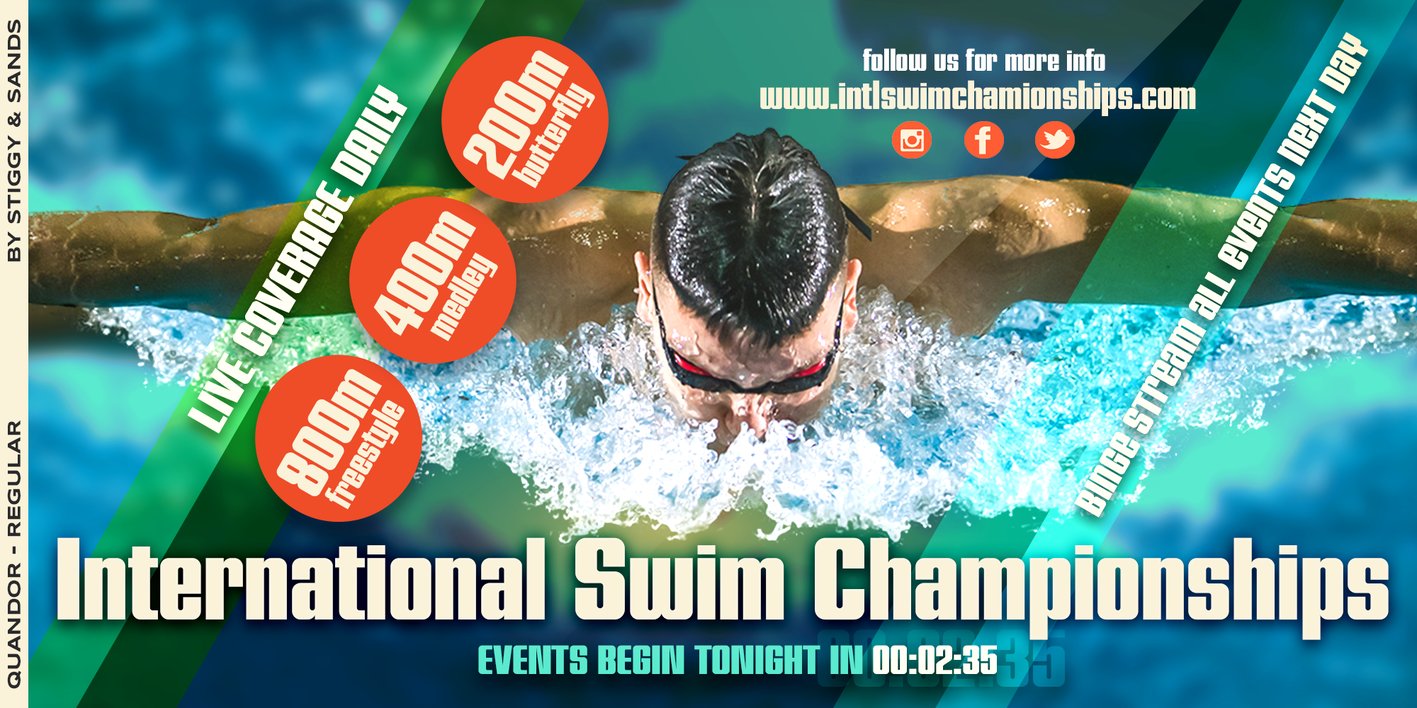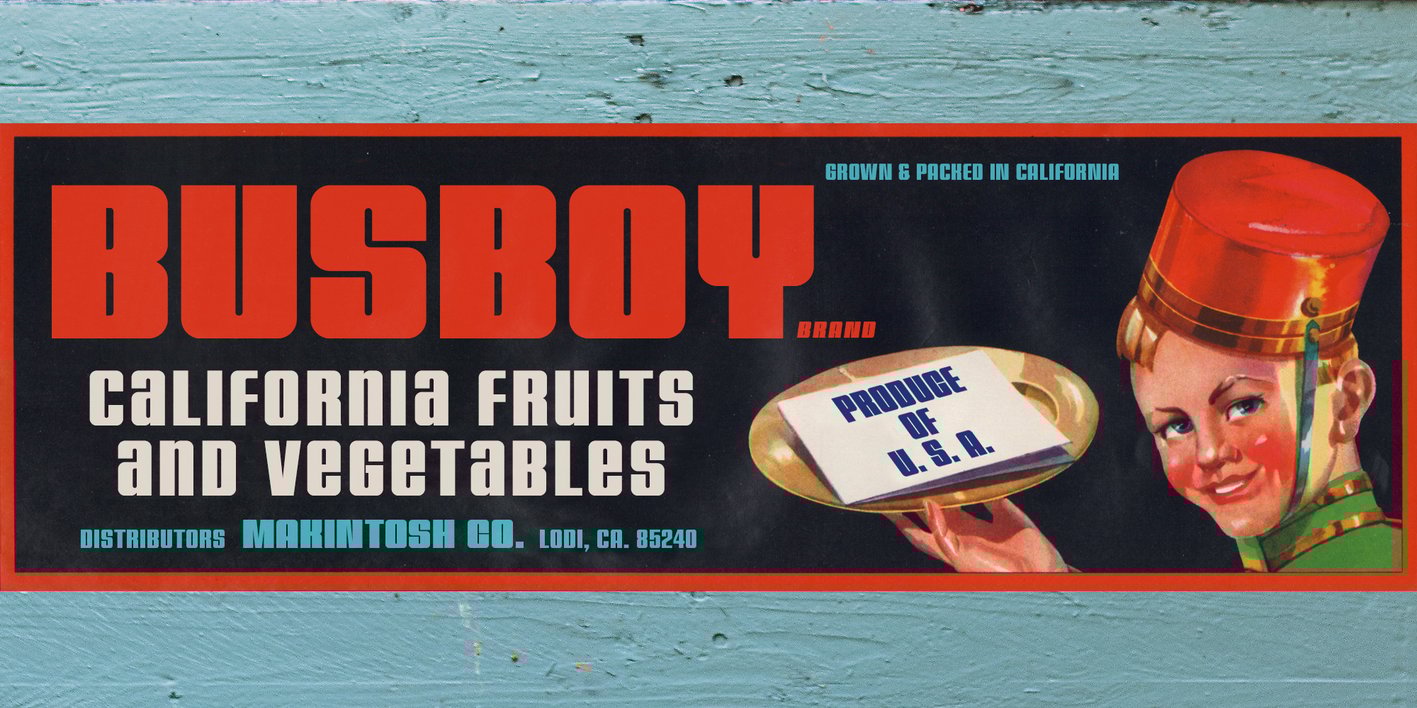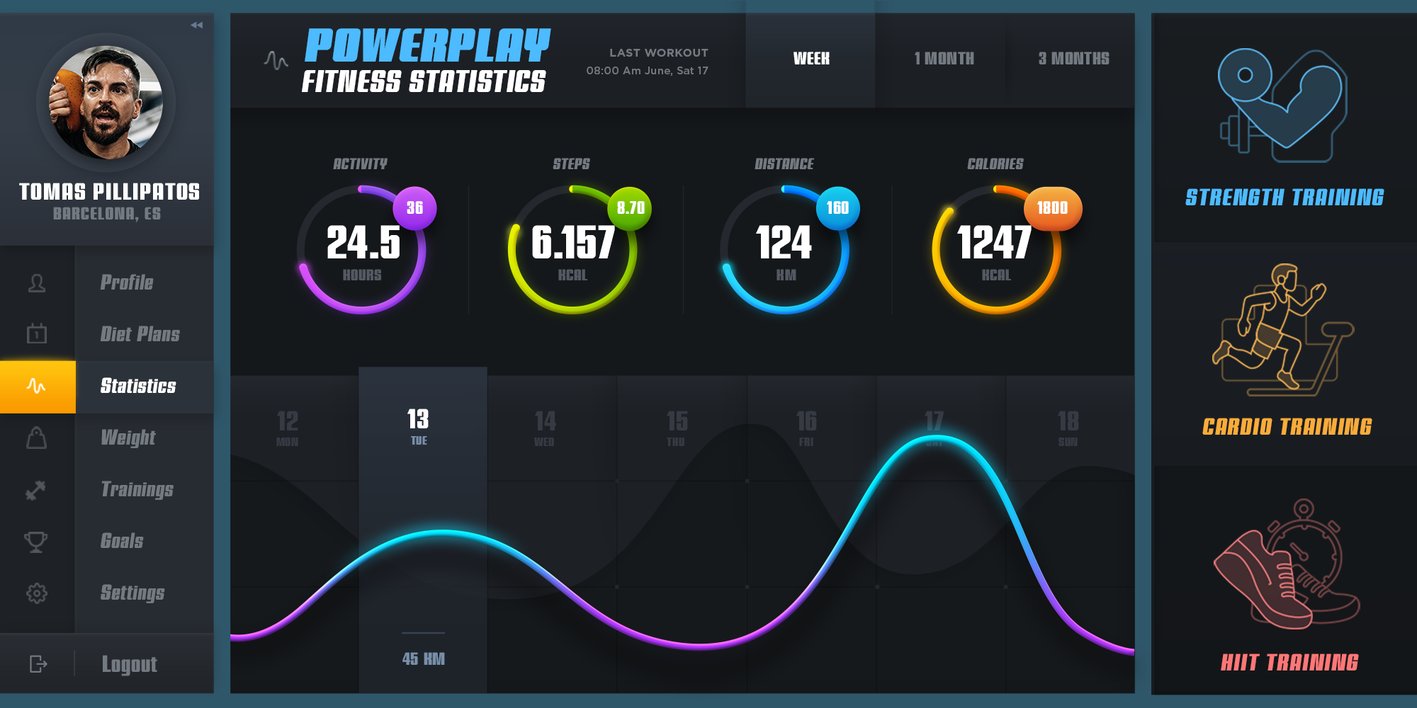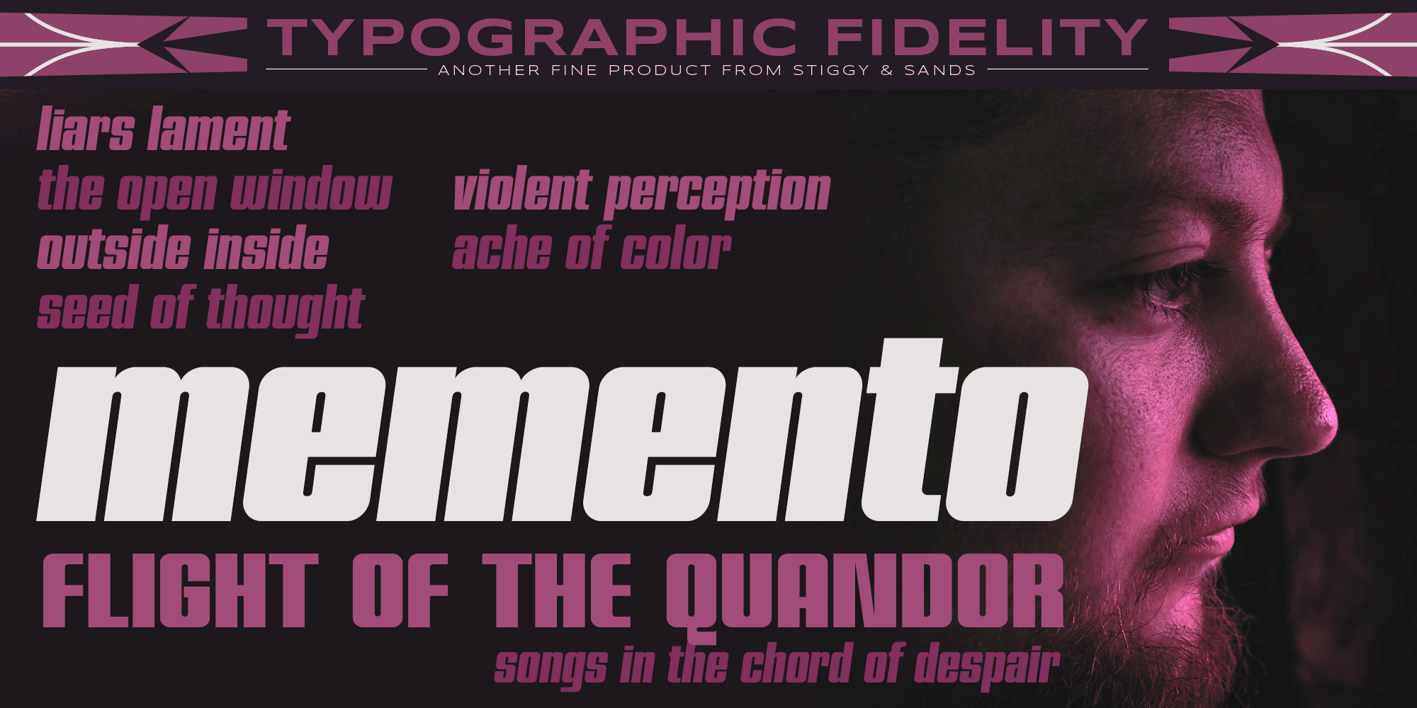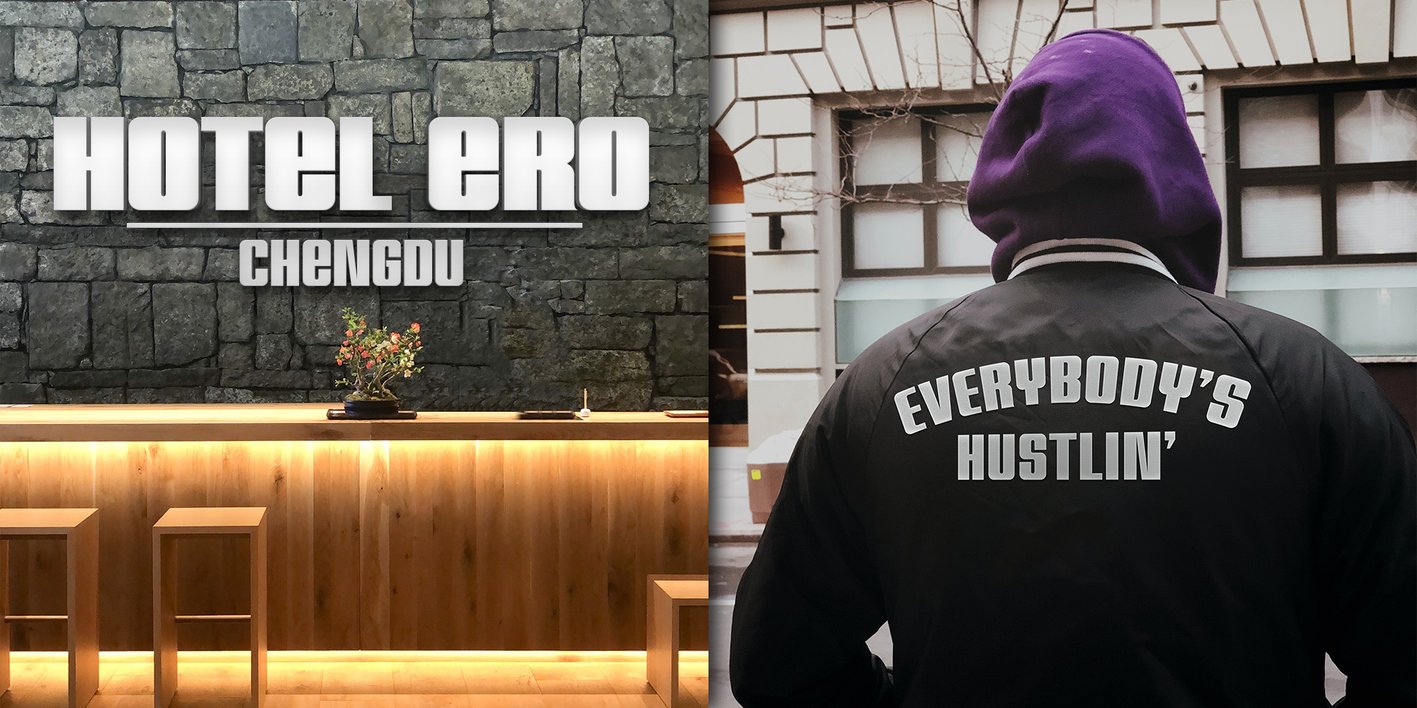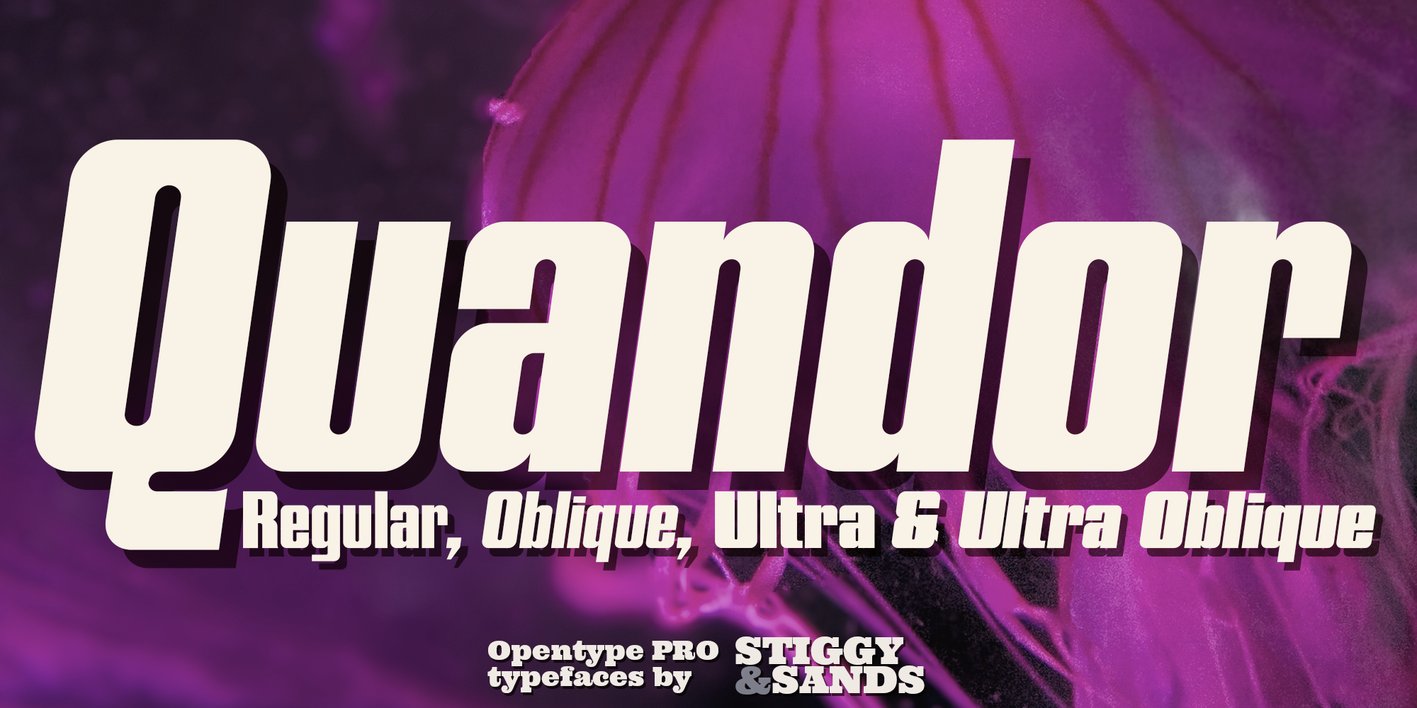
Quandor Font
Quandor Font is perfect for quantum physics publications, mathematical research journals, advanced technology branding, scientific conference materials, aerospace engineering documentation, quantum computing interfaces, theoretical physics presentations, cutting-edge research institutes, innovation laboratory signage, and futuristic academic publications. This sophisticated typeface brings scientific precision and quantum-age aesthetics to any research-focused design project.
Quandor Font is exciting because it embodies the mysterious and revolutionary nature of quantum mechanics with its precisely calculated letterforms that suggest both mathematical accuracy and infinite possibility. Its scientific character creates immediate associations with breakthrough discoveries, theoretical advancement, and the boundless potential of quantum exploration.
The Quandor Font family includes Light, Regular, Medium, Bold, and Black weights with matching italics, plus monospace variants for code displays and technical specifications that enhance the scientific aesthetic, providing researchers with comprehensive tools for creating professional quantum-era typography compositions.
Research professionals appreciate Quandor Font for its exceptional clarity in technical documentation and its ability to convey scientific credibility through carefully engineered letterforms. The font's precise construction and systematic approach reflect the methodical nature of scientific inquiry while its forward-thinking design suggests the revolutionary potential of quantum technologies.
The scientific authenticity of Quandor Font draws inspiration from quantum mathematical equations, particle physics diagrams, and the visual language of theoretical research, making it particularly effective for institutions seeking to establish authority in cutting-edge scientific fields. Academic teams working on quantum research find this font essential for professional presentation materials.
Whether used for quantum computing startups, physics research publications, or advanced technology conferences, Quandor Font delivers the perfect synthesis of scientific precision and futuristic vision. Its quantum-inspired appeal and academic credibility make it an indispensable choice for communicating complex scientific concepts and celebrating the revolutionary potential of quantum technologies.